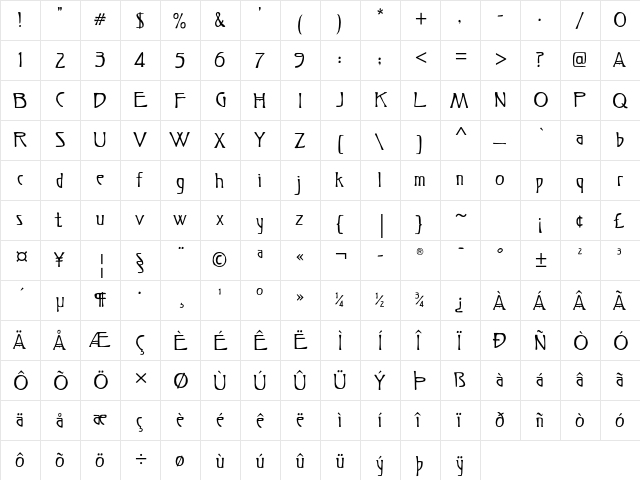
Greengate ITC Std Regular
| Designer | Richard Every |
Design Context for Greengate ITC Std Typeface
Greengate ITC Std is a composed and adaptable typeface that performs quietly and consistently across a wide range of design contexts.